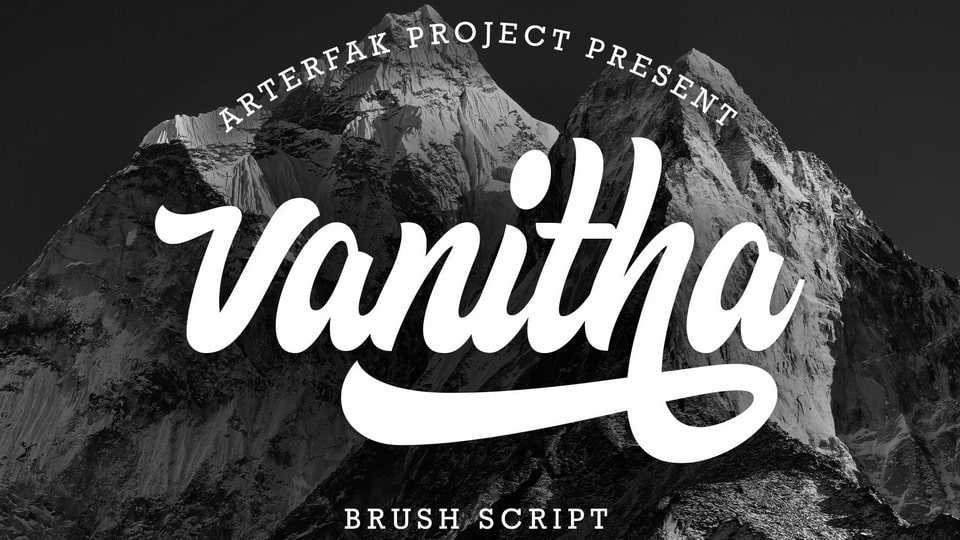
Download Vanitha font, a bold script typeface, inspired by vintage logos and old-school sign painting. Vanitha font is made with hand drawings and still pays attention to the calligraphic form so that it looks modern and unique.